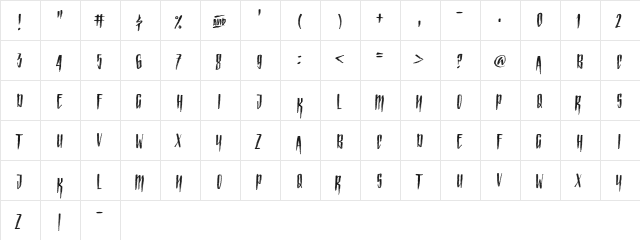
Strained Capitals Regular
| Designer | The Branded Quotes |
Design Context for Strained Capitals Typeface
Strained Capitals is a composed and adaptable typeface that performs quietly and consistently across a wide range of design contexts.
Pro Tip: Pair Strained Capitals with a font of contrasting weight or personality to build a more expressive typographic hierarchy.